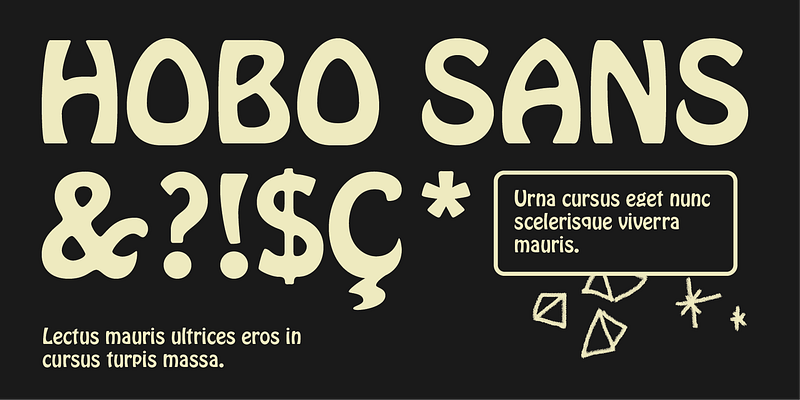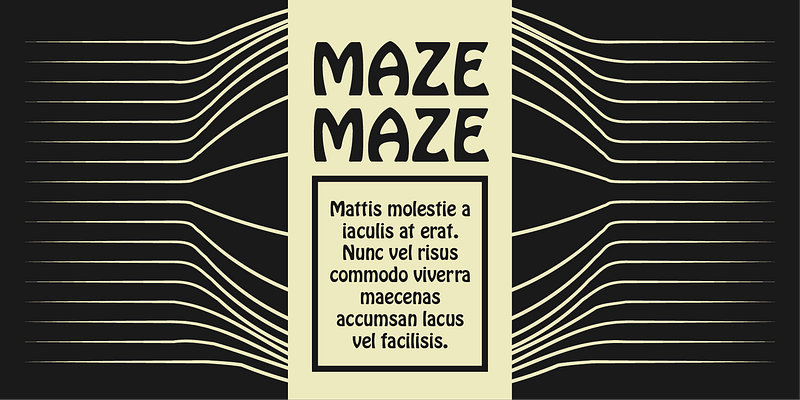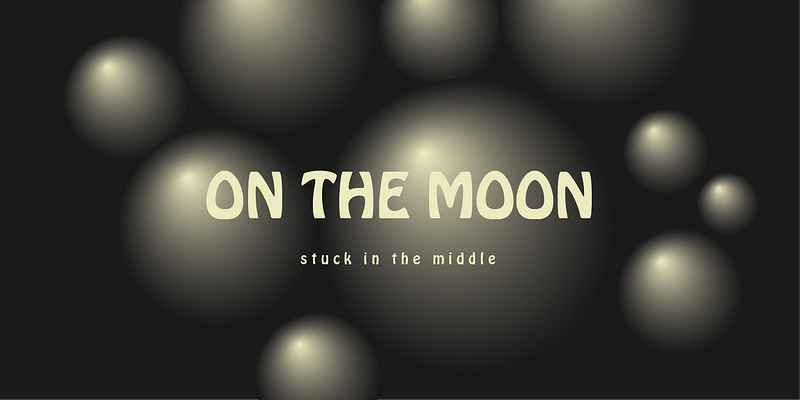
Hobo was designed in 1910 by Morris Fuller Benton for American Type Founders. This unusual Art Nouveau-inspired design contains no straight lines and no descenders. It imparts a friendliness to display work such as invitations, menus, signage, and packaging.